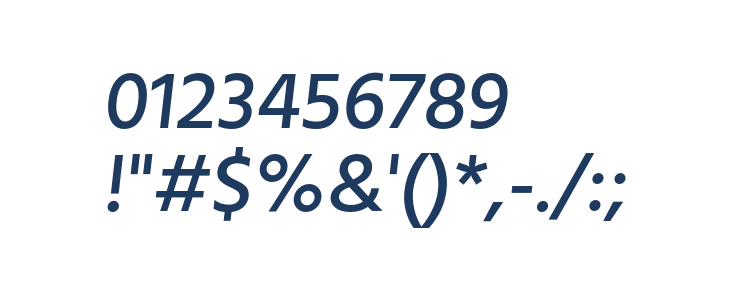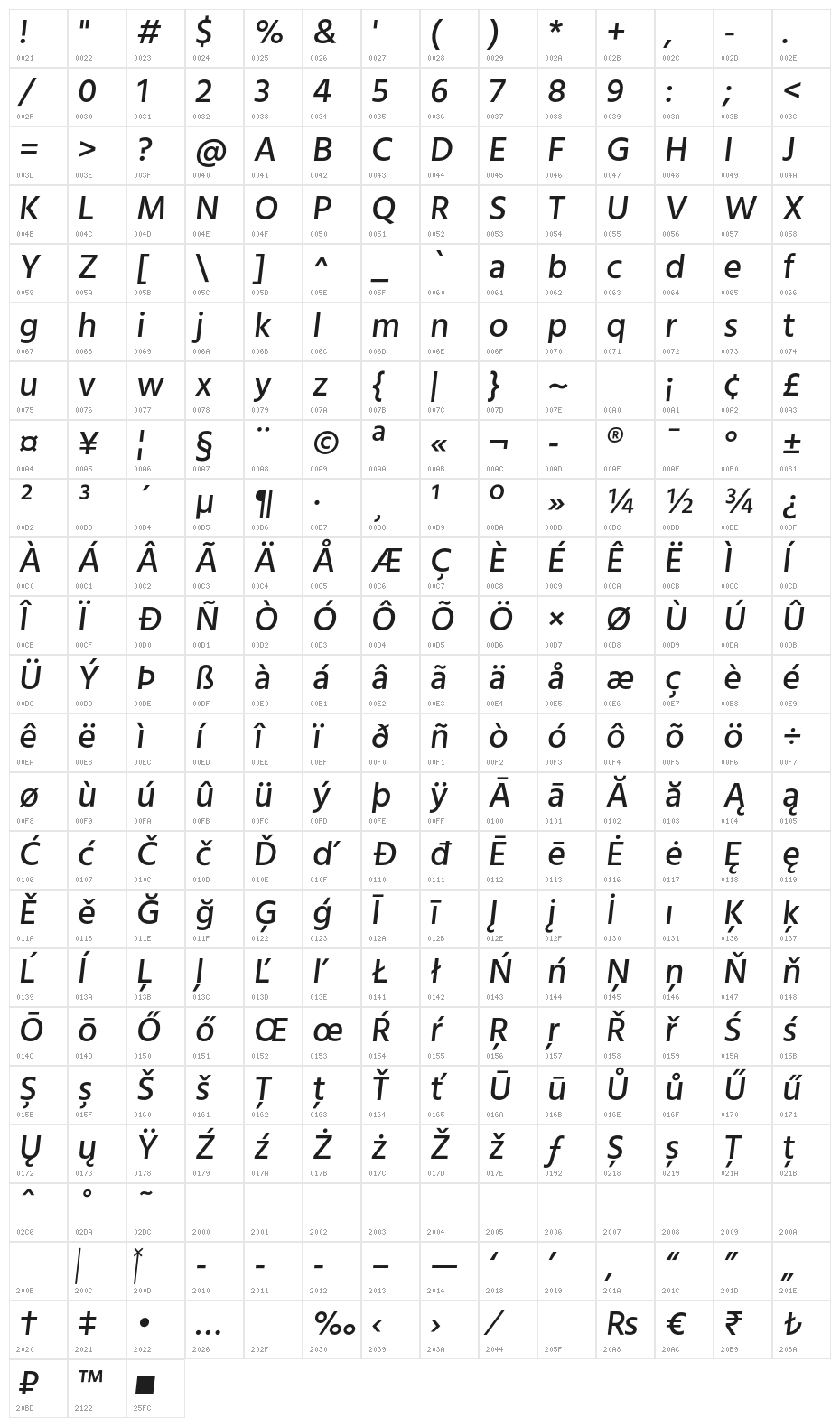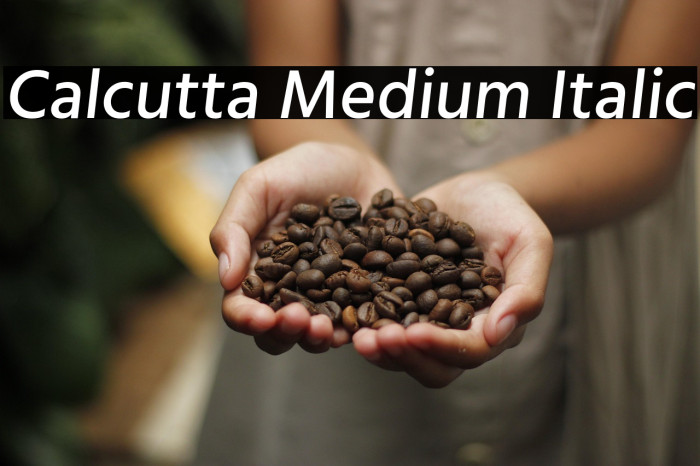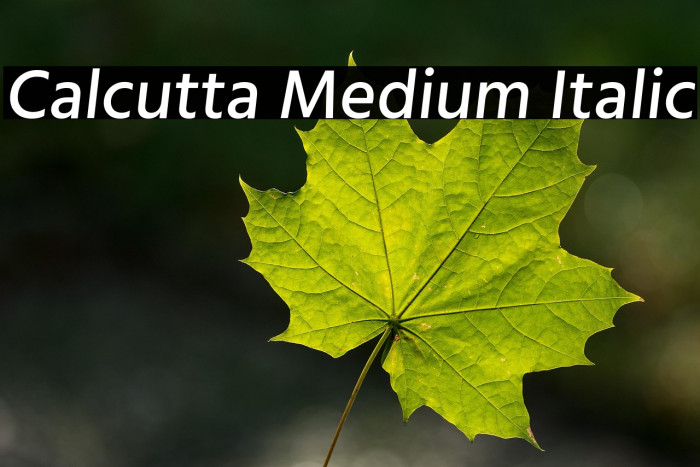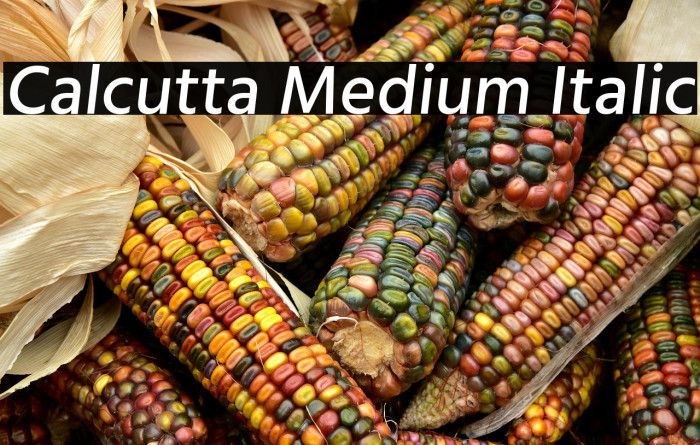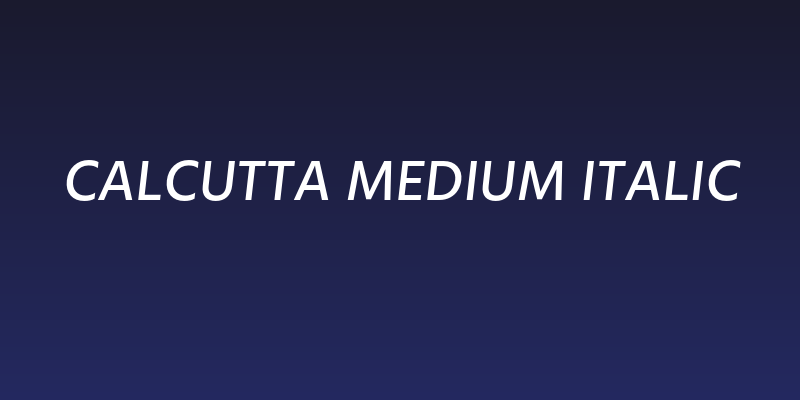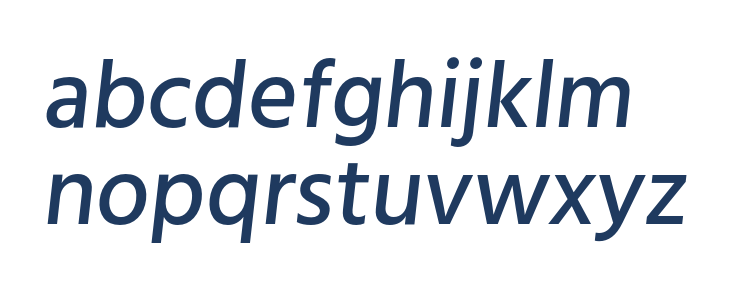
Calcutta Medium Italic Font
Calcutta Medium Italic Description
This font features a clean and modern sans-serif style with a slight italic slant, giving it a dynamic and forward-moving appearance. The characters are well-proportioned with smooth curves and straight lines, providing a balanced and professional look. The medium weight offers a solid presence without being too bold, making it versatile for various design applications. The spacing between characters is normal, ensuring readability and clarity. The numerals and special characters maintain the same stylistic consistency, enhancing the font's overall coherence.
| Proposed Projects | Ideal for branding, editorial design, advertising, and web design projects. |